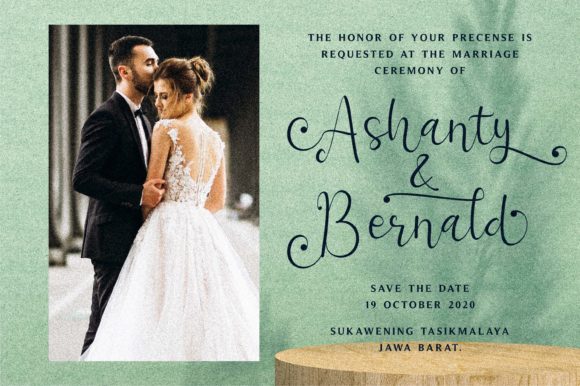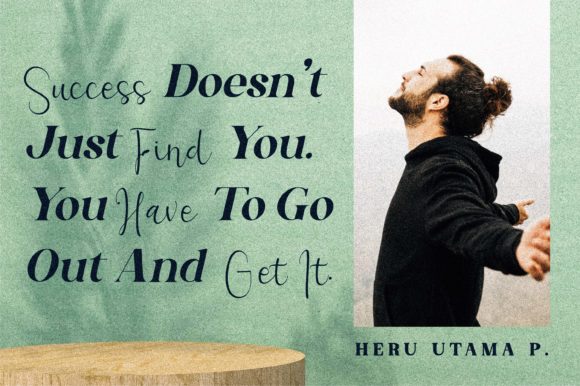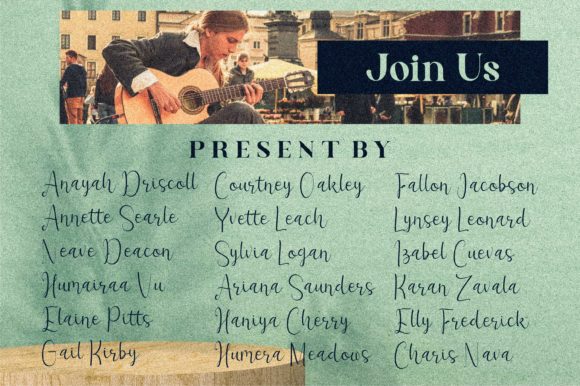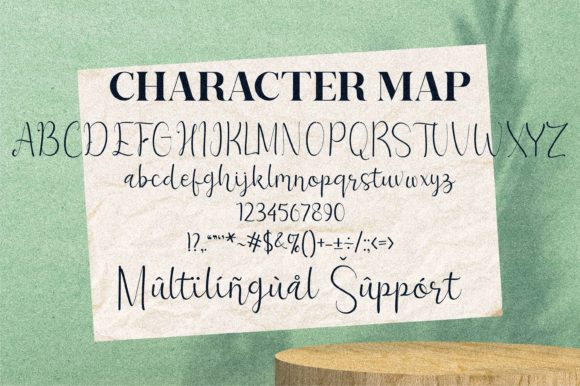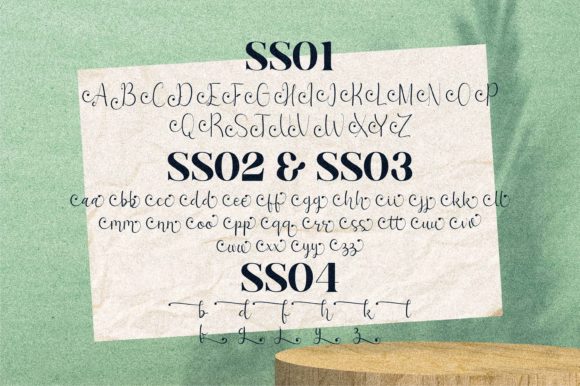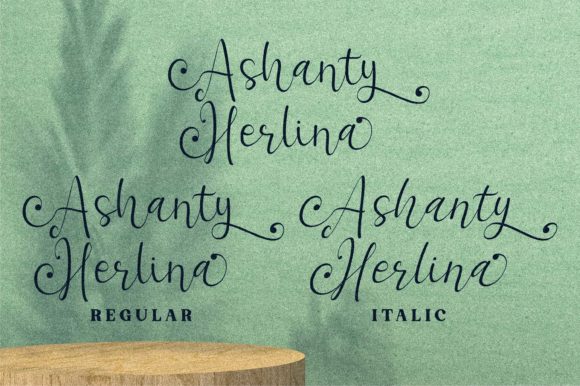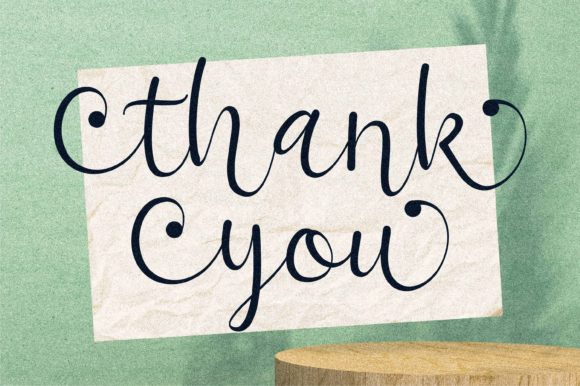
Ashanty Herlina Font
About Ashanty Herlina Font
Ashanty Herlina is a cute and quirky script font. Add it to your most creative ideas and notice how it makes them come alive!